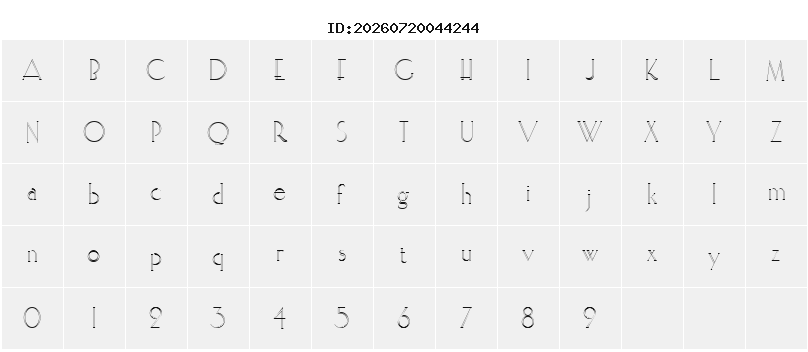
• Font Name: ElegantOpenFace
• Full Font Name: ElegantOpenFace
ElegantOpenFace.ttf is a modern, elegant sans-serif font designed for ultimate readability and visual harmony. Perfect for branding, headlines, web design, and print materials.